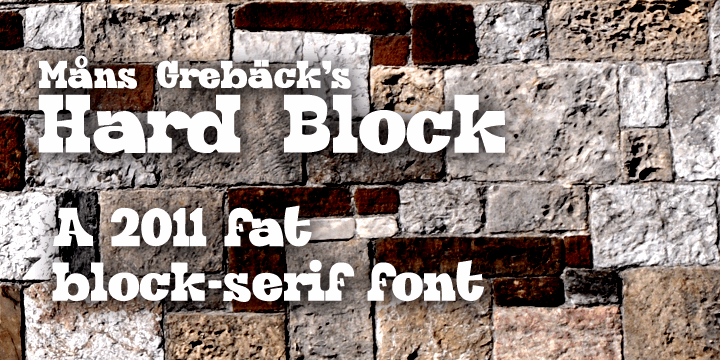
Free Hard Block Font
Featuring the dazzling free hard block font. Go give some love to Font Space for creating this top-notch free font. This is absolutely fancy font so you can easily make world-class designs.